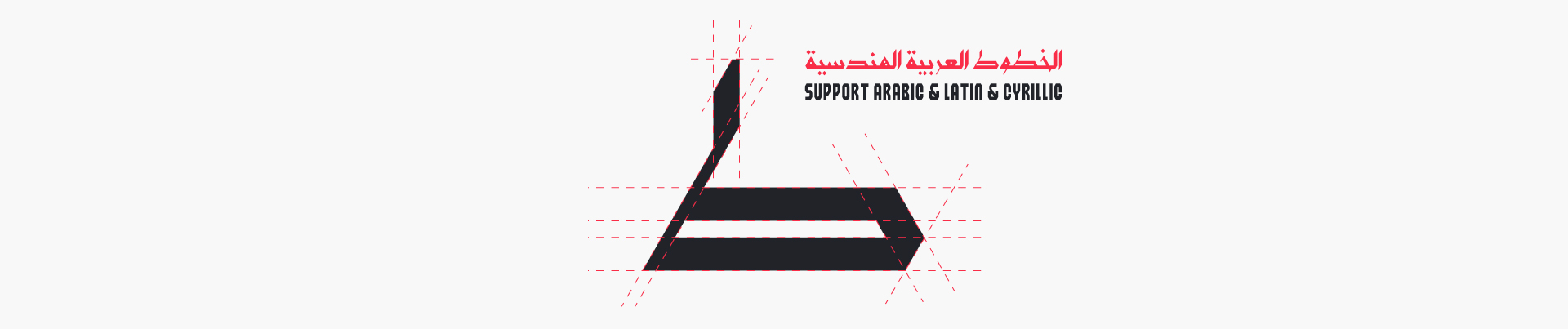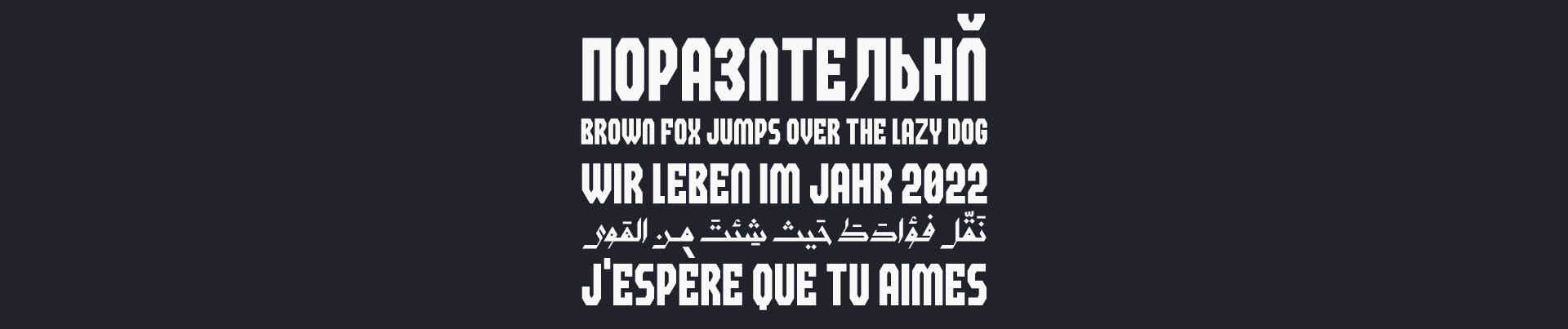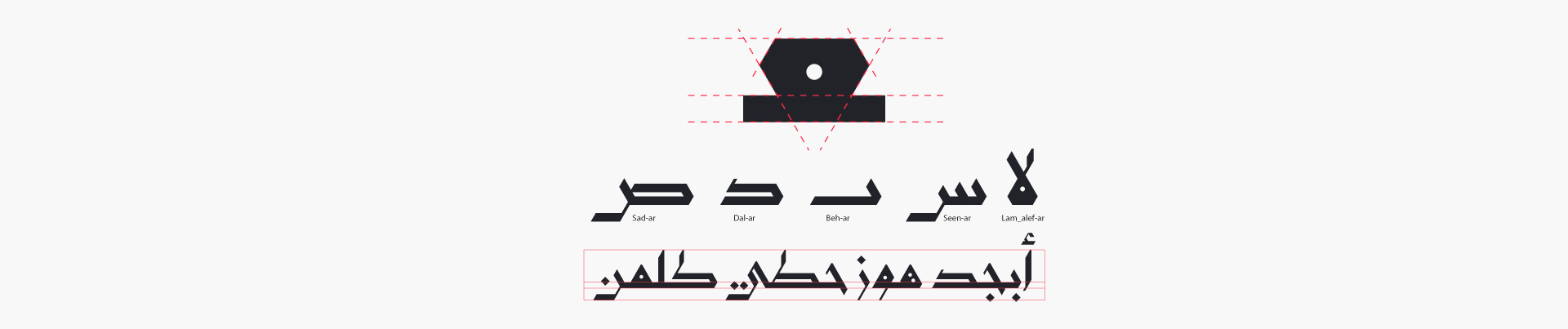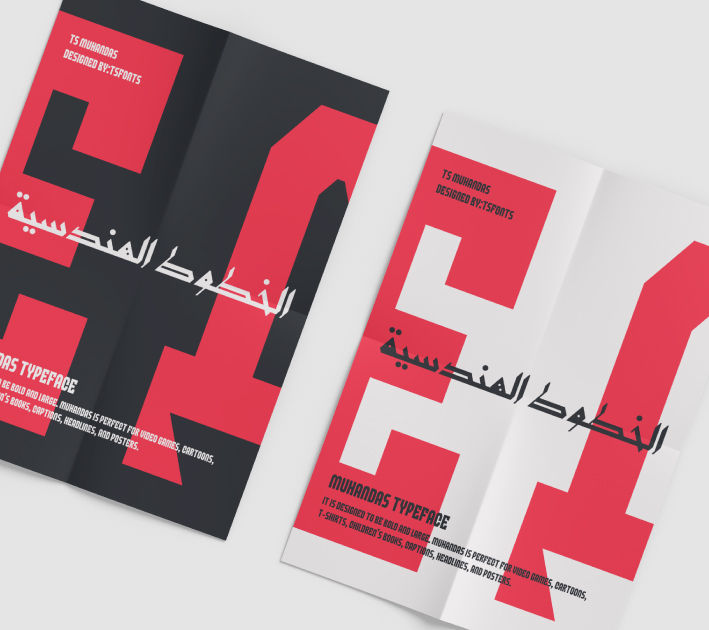
About Muhandas Font
Introduction:
Muhandas is a geometric font that is inspired by Kairouani Kufi style calligraphy, with amendments that suit the typographical letter.
Muhandas letters’ drawing is formed by the meeting of the 60˚ and 90˚ angles. The dots and negative spaces’ designs in Arabic and lowercase are taken from the Kairouani Kufi style and the same is applied on the Latin and Cyrillic letters.
Weights and Supported Languages:
Muhandas Font consists of 1 weight.
It supports Arabic, Latin, and Cyrillic.
Usage:
Muhandas is used in headlines, short texts, social media posters, and visual identities.